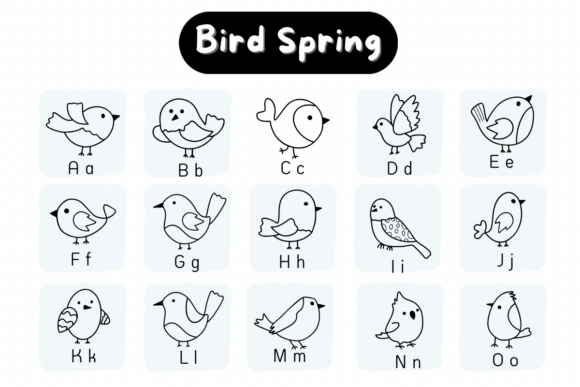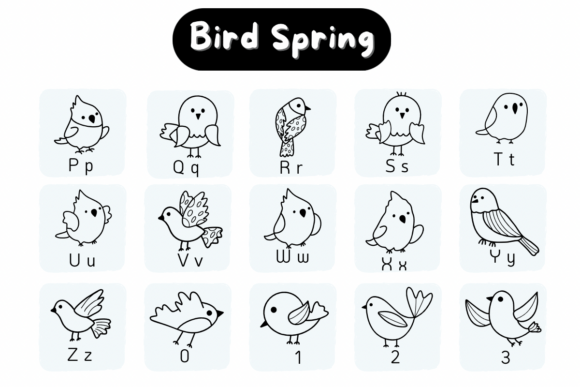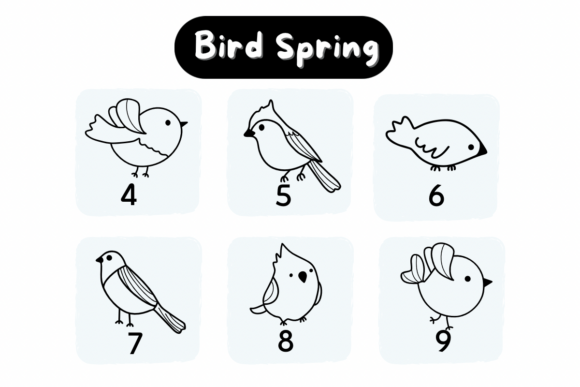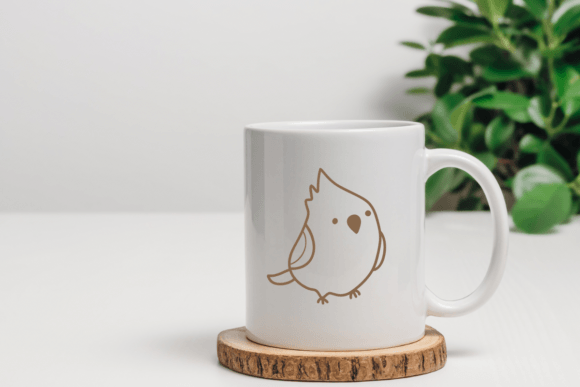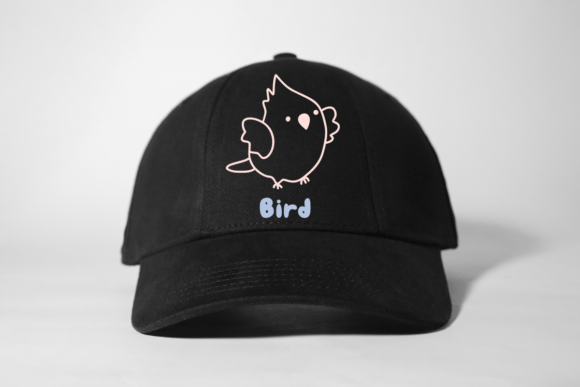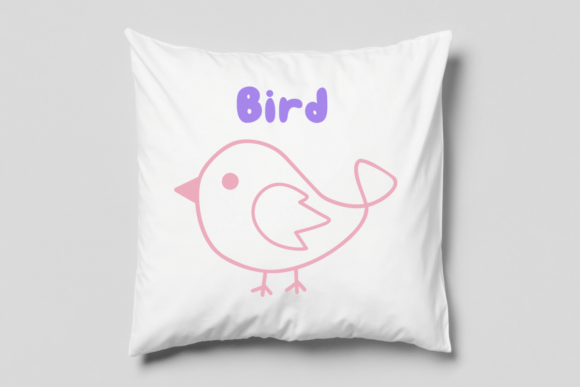
Adding a Touch of Whimsy to Your Designs
Have you ever found yourself staring at a blank page, searching for the perfect font to bring your creative project to life? You know, that moment when everything seems just a little bit dull and you wish you had a spark of inspiration to set it all off? For designers, this is a familiar feeling, and one that can be solved with the right tools – like the delightful Bird Spring Font.
This charming dingbat font is designed to add a playful touch to your projects, with each character featuring a different adorable bird. Whether you’re working on invitations, greeting cards, or any other creative endeavor, Bird Spring Font is sure to bring a smile to your face and a dash of joy to your design. With its versatility and charm, it’s no wonder that Bird Spring Font has become a valuable asset for designers looking to add a little whimsy to their work.
Bird Spring Font Key Features
- Unique Characteristics: Bird Spring Font features a unique blend of modern and organic elements, with subtle flair and intricate details that add a touch of sophistication to any design.
Bird Spring Font Review
As a designer, I was excited to try out the Bird Spring Font. Here’s my honest review.
- Unique aesthetic: The Bird Spring Font has a distinctive, hand-drawn look that’s perfect for adding a touch of whimsy to designs.
- High-quality glyphs: The font includes a wide range of characters, including symbols and punctuation, that are all beautifully rendered.
- Flexible: Bird Spring Font works well for both digital and print projects, making it a versatile choice for designers.
- Limited font weight options: While the font looks great, it’s only available in a few weights, which can limit its use in certain designs.
- No italics or bold-italic options: If you need to create italic or bold-italic text, you’ll need to rely on other fonts or use workarounds.
Overall, I think the Bird Spring Font is a solid choice for designers looking for a unique, high-quality font. While it has some limitations, its versatility and aesthetic appeal make it a great addition to any design toolbox.
Tips for Getting the Most Out of the Bird Spring Font
Use the Bird Spring font in conjunction with other design elements to create a unique and eye-catching look. Experiment with different font sizes, colors, and styles to find the perfect combination for your design. Consider using the font in a bold or italic style to add emphasis to your text.
The Bird Spring font is perfect for use in logos, branding, and marketing materials. It’s also great for use in wedding invitations, greeting cards, and other special occasion materials. Consider using the font in a combination with other design elements to create a unique and memorable look.
Alternatives to Bird Spring Font
Playfair Display is an elegant and luxurious script font that is perfect for formal and high-end designs. It features intricate details and flourishes, making it ideal for wedding invitations, luxury brands, and high-end publications. Compared to Bird Spring Font, Playfair Display has a more refined and sophisticated look, making it a better choice for projects that require a touch of elegance.
Great Vibes is a modern and stylish script font that is great for creating a sense of fun and playfulness. It features a more casual and relaxed look, making it perfect for creative projects, social media graphics, and advertising materials. Compared to Bird Spring Font, Great Vibes has a more laid-back and approachable feel, making it a better choice for projects that require a sense of fun and creativity.